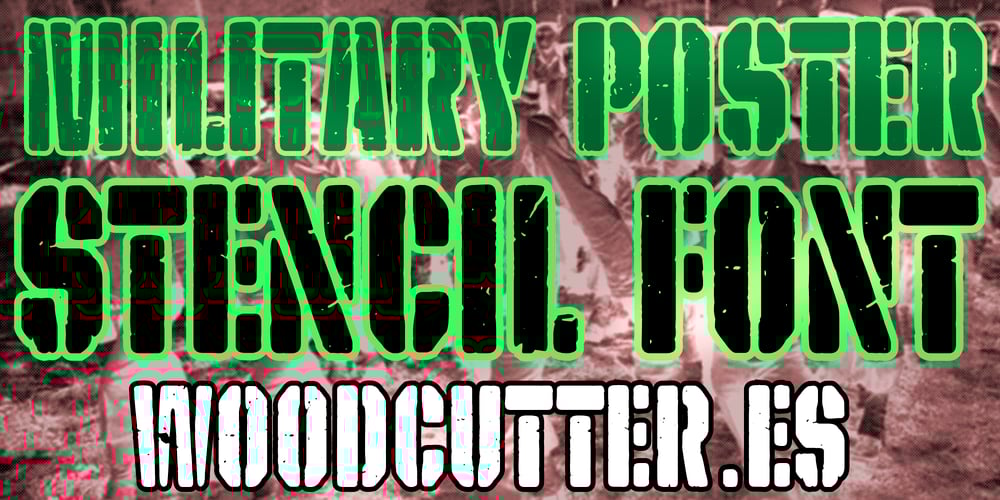
Military Poster Font Family was designed by Jordi Manero and published by Woodcutter. Military Poster contains 1 styles and family package options. “Military Poster” is a stencil font featuring elongated, compressed letters with a worn-out appearance. This typeface evokes the sturdy and functional style of military posters, perfect for projects aiming for a vintage and utilitarian aesthetic. The worn-out look of the letters adds a touch of authenticity and rugged use, ideal for designs needing a sense of strength and resilience. “Military Poster” is an excellent choice for covers, posters, and any design aiming to convey a strong and direct message.